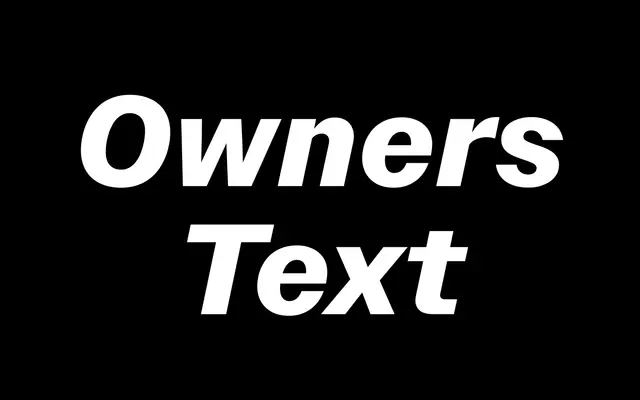
Owners Text
A text-optimised companion to the Owners display family, distilling the quirk and warmth of Los Angeles handmade signage into a workhorse six-weight sans.
Owners Text is the small-size sibling of Jeremy Mickel's Owners superfamily, sharing its roots in the International Style vernacular signage of Los Angeles but tuned for comfortable reading at body sizes. Six weights from XLight to Black each carry matching italics, giving twelve styles in total. Stylistic alternates include a schoolbook 'a' and 'y', an alternate Q and dollar sign, and contextual arrows, adding flexibility for editorial and identity contexts.
Draws from International Style signage vernacular as seen in Los Angeles, with warmth and quirk inherited from handmade letterforms — placing it closer to humanist sans than pure geometric or grotesque.